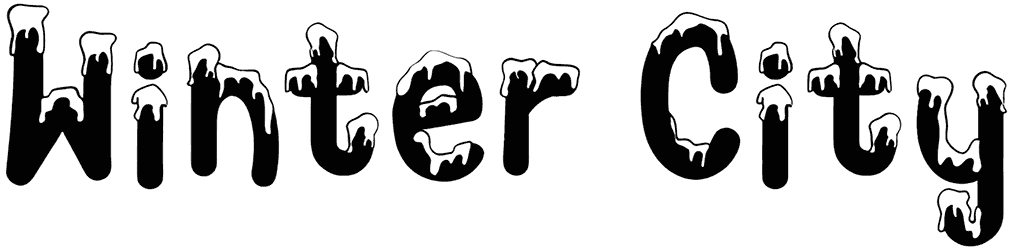
Winter City Font
Get ready for our new creative snow font, Winter City. It has bold, frozen characters and contains uppercase and lowercase letters, numbers, and punctuation. It’s cheerful and sweet, a perfect choice for creating eye-catching winter theme projects. This unique ice font can be used for animation posters, graphic designs, book covers, greeting cards, and Christmas concepts.